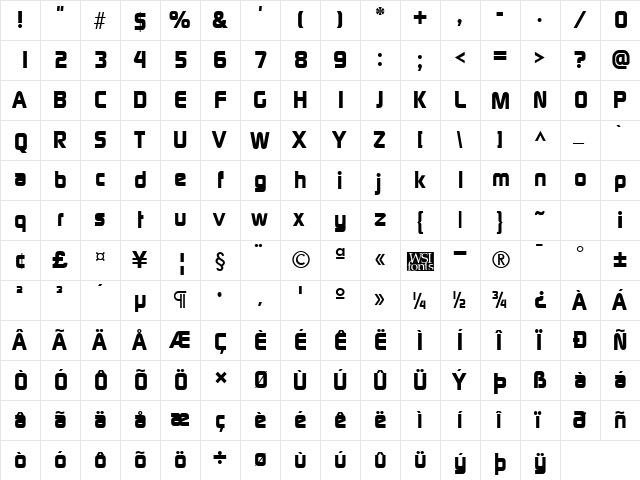
ModaerneHeavy Regular
Design Context for ModaerneHeavy Typeface
ModaerneHeavy is a composed and adaptable typeface that performs quietly and consistently across a wide range of design contexts.